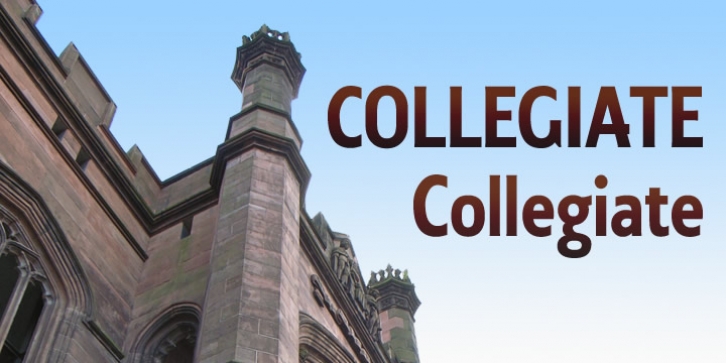
Collegiate was published by K-Type. Collegiate contains 1 style.
Collegiate is a full font based on the lettering around an old mosaic tile badge at Liverpool Collegiate School.